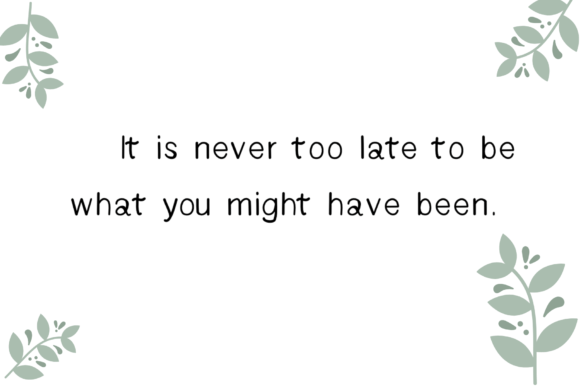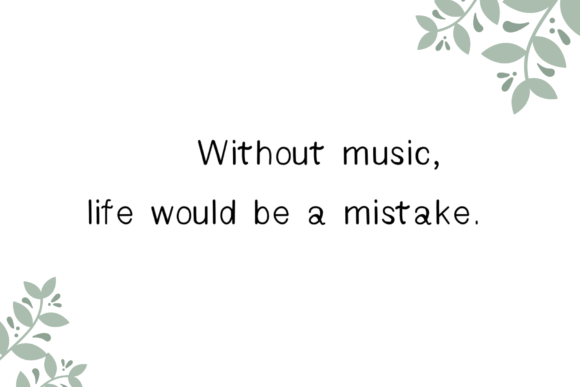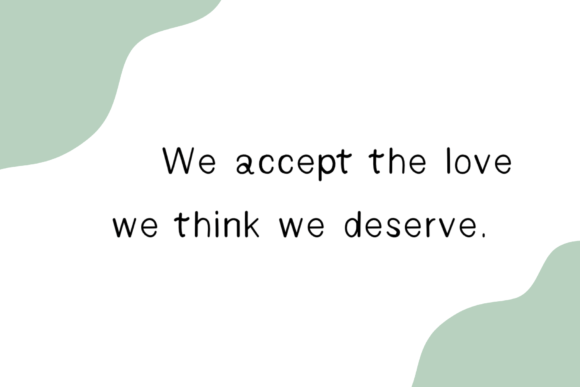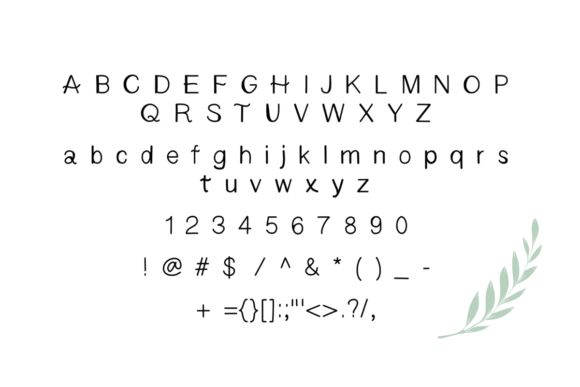
Introducing Happy Font: The Simple and Clean Handwritten Font for All Your Creative Projects
Are you tired of using generic fonts that lack personality? Look no further than Happy Font, a simple and clean handwritten font that’s perfect for adding a touch of warmth and friendliness to your designs. In this article, we’ll explore the features and benefits of Happy Font, and show you can use it to elevate your creative projects.
What is Happy Font?
Happy Font is a beautiful handwritten font that’s designed to be versatile and easy to read. Its simple and clean lines make it perfect for a wide range of applications, from blog posts and logos to branding, ads, invitations, greeting cards, planners, photo albums, decorations, and more.
Key Features of Happy Font
- Simple and Clean Design: Happy Font features a simple and clean design that’s easy on the eyes. Its smooth lines and rounded edges give it a friendly and approachable feel.
- Highly Versatile: Happy Font is perfect for a wide range of projects, from digital designs to print materials.
- Easy to Read: The font is designed to be easy to read, even at small sizes.
- Handwritten Style: Happy Font has a warm and personal handwritten style that’s perfect for adding a touch of personality to your designs.
How to Use Happy Font in Your Projects
Happy Font is perfect for designers and crafters who want to add a personal touch to their projects. Here are some ideas for using Happy Font:
- Blog Posts: Use Happy Font to add a personal touch to your blog posts and make them more engaging.
- Logos and Branding: Create a unique and memorable logo for your brand using Happy Font.
- Ads and Marketing Materials: Use Happy Font to create eye-catching ads and marketing materials that stand out from the crowd.
- Invitations and Greeting Cards: Add a personal touch to your invitations and greeting cards with Happy Font.
- Planners and Photo Albums: Use Happy Font to create beautiful and functional planners and photo albums.
- Decorations: Use Happy Font to create beautiful decorations, such as wall art and signs.
Benefits of Using Happy Font
There are many benefits to using Happy Font in your projects. Here are a few:
- Unique and Memorable: Happy Font is a unique and memorable font that will help your designs stand out from the crowd.
- Easy to Read: The font is easy to read, even at small sizes, making it perfect for digital designs and print materials.
- Versatile: Happy Font is highly versatile and can be used in a wide range of projects.
- Time-Saving: With Happy Font, you can create beautiful designs quickly and easily, saving you time and effort.
Tips for Getting the Most Out of Happy Font
Here are some tips for getting the most out of Happy Font:
- Experiment with Different Sizes and Colors: Experiment with different sizes and colors to find the perfect combination for your project.
- Pair with Other Fonts: Pair Happy Font with other fonts to create a unique and interesting design.
- Use in Combination with Images: Use Happy Font in combination with images to create a beautiful and eye-catching design.
Happy Font is a simple and clean handwritten font that’s perfect for designers and crafters who want to add a personal touch to their projects. With its highly versatile design and easy-to-read style, Happy Font is perfect for a wide range of applications. Whether you’re creating blog posts, logos, branding, ads, invitations, greeting cards, planners, photo albums, decorations, or more, Happy Font is the perfect choice.